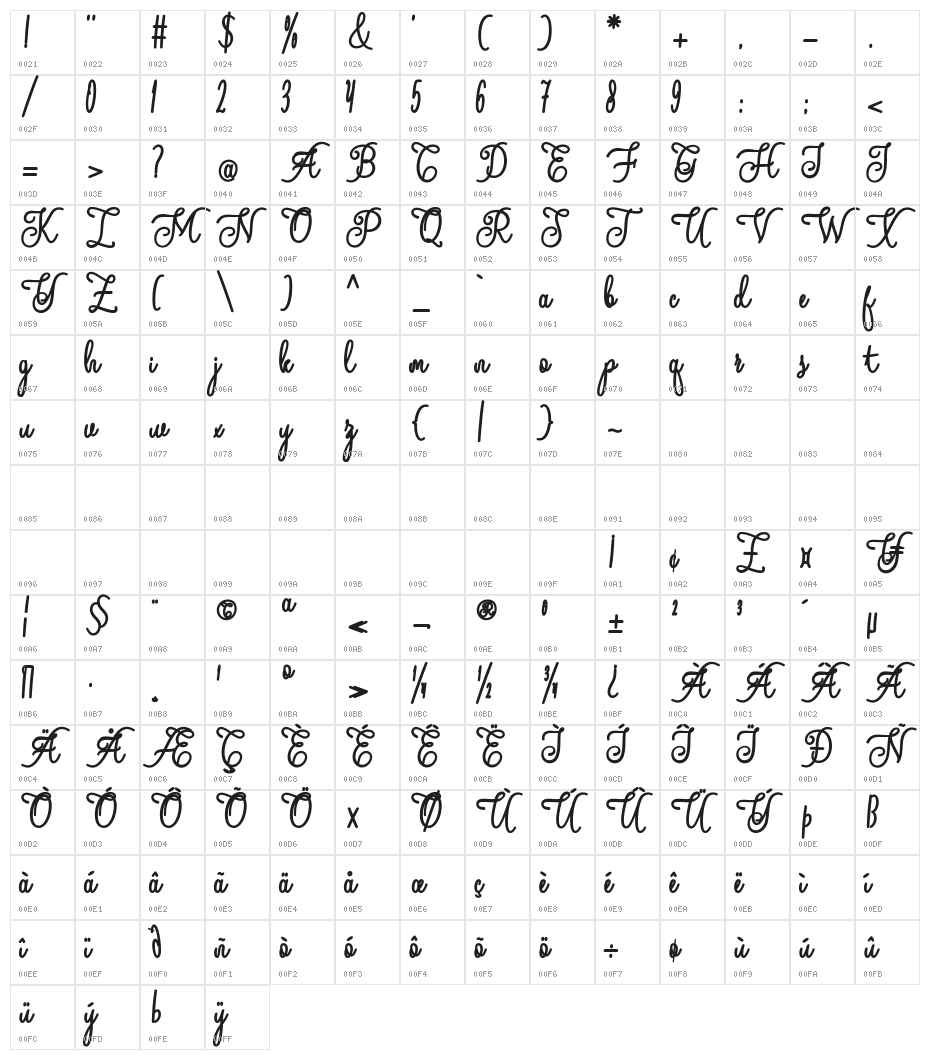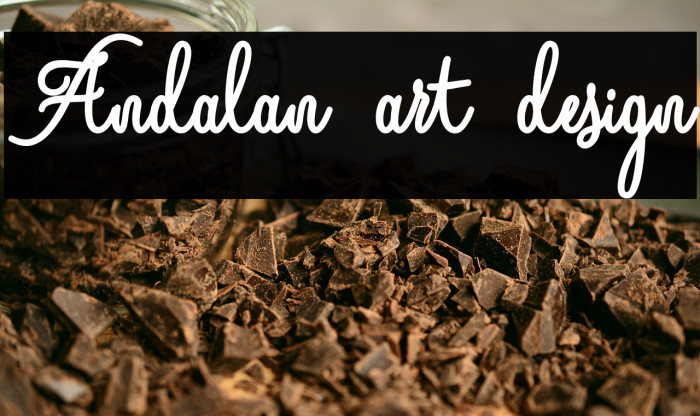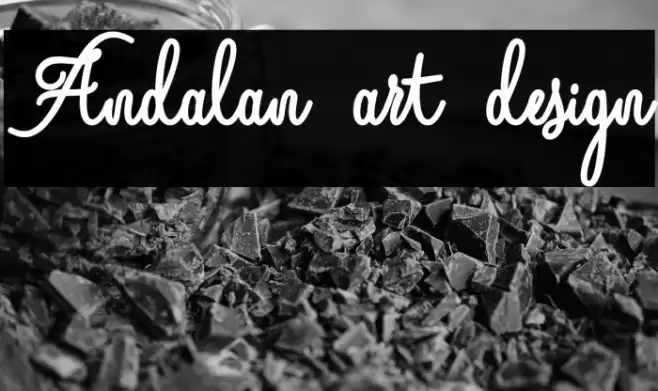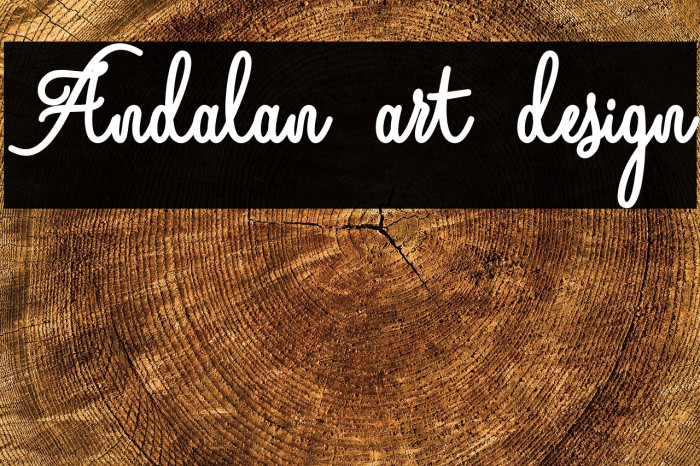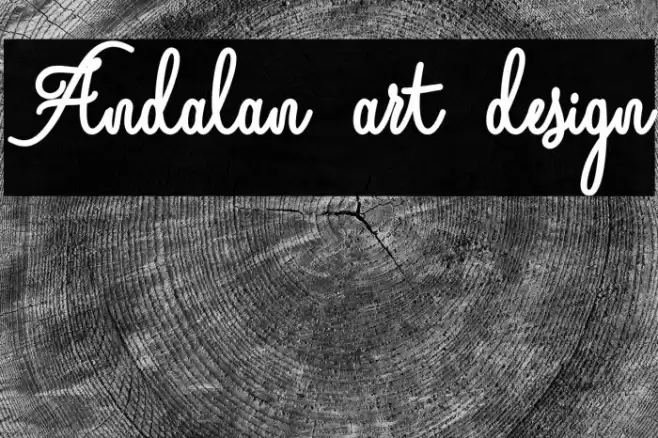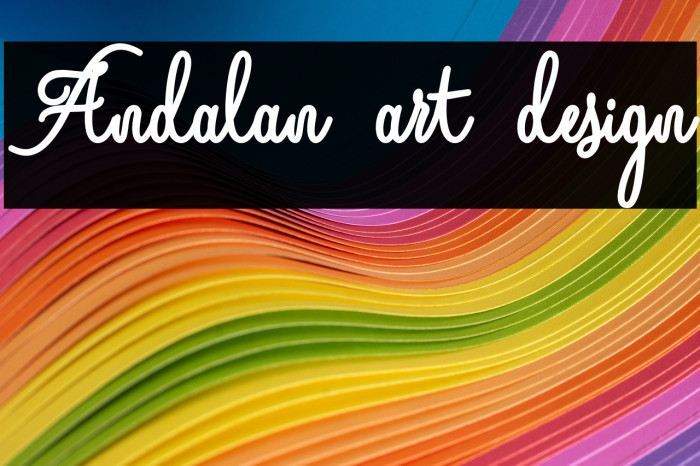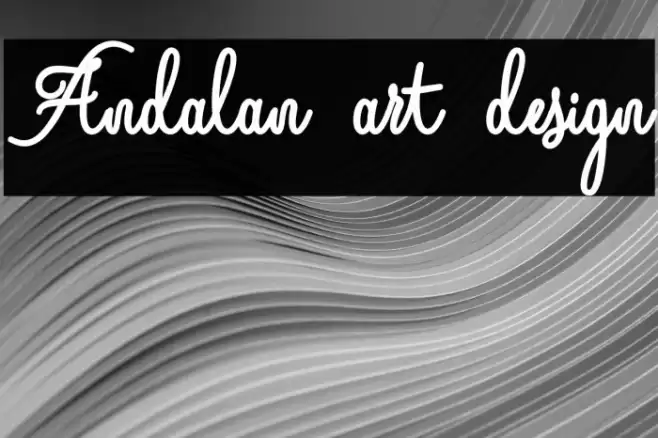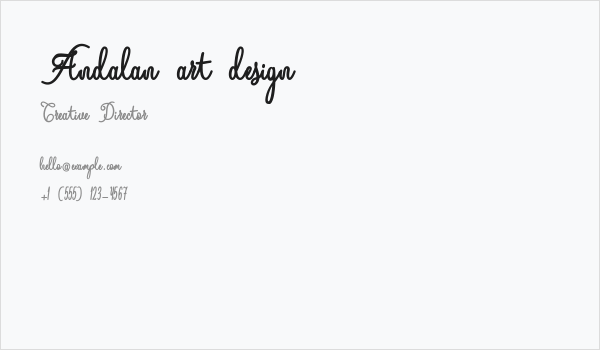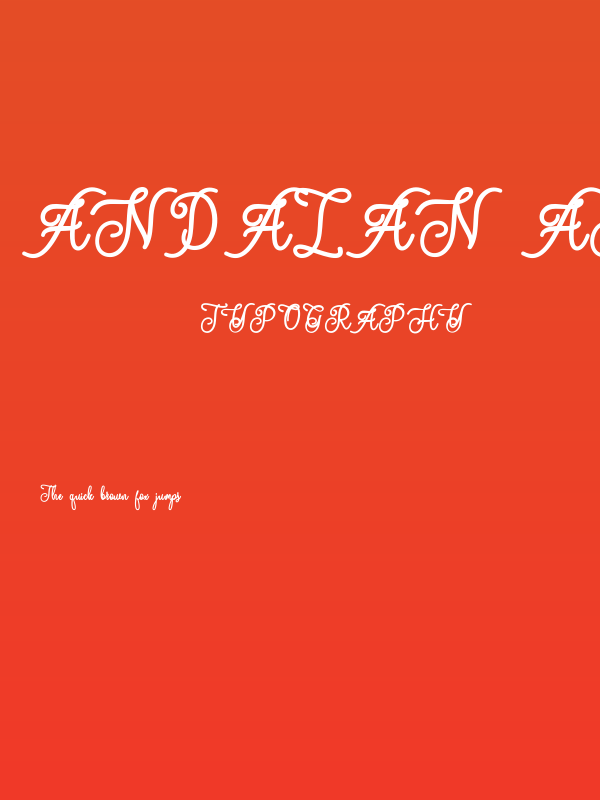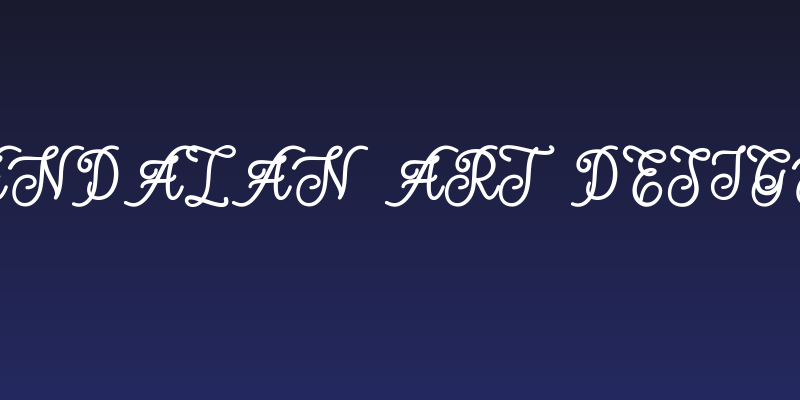
Andalan art design Font
Andalan art design Description
This font features a playful and artistic script style with a flowing, cursive design. The uppercase letters are elegantly looped, giving a sense of movement and fluidity. The lowercase letters maintain a consistent style, with some letters connecting seamlessly to the next, enhancing the cursive effect. The numerals are distinct yet maintain the overall aesthetic, with a slight slant that complements the letters. Special characters are creatively designed, adding to the font's artistic appeal. The font's overall appearance is bold and expressive, making it suitable for creative and decorative purposes.
| Proposed Projects | Ideal for greeting cards, invitations, artistic posters, and branding projects that require a personal touch. |